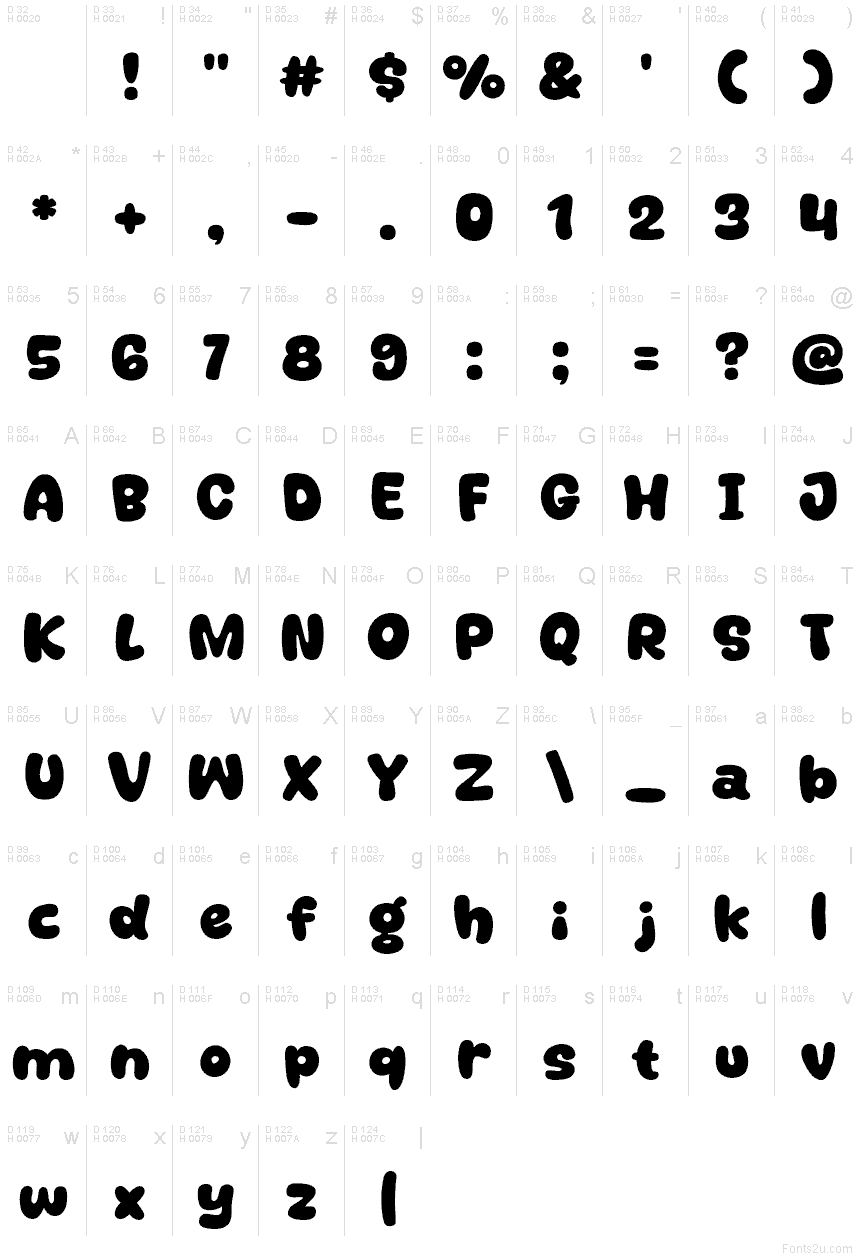
Quick Stand
Quick Stand font by Khurasan is a playful and bold display font defined by its cartoon style. Bubbly, rounded shapes give it a fun touch with retro influences that’s ideal for youthful projects. The casual aesthetic of this font has an informal vibe, making it suitable for relaxed designs where a hint of humor is welcome.
The free Quick Stand font pairs well with cartoon books and magazines, magic-related content, posters, banners, board games, short stories cover designs, candy products branding, animation covers/titles/branding design projects & marketing material; basically your wildest ideas that need a bit of friendly pop!